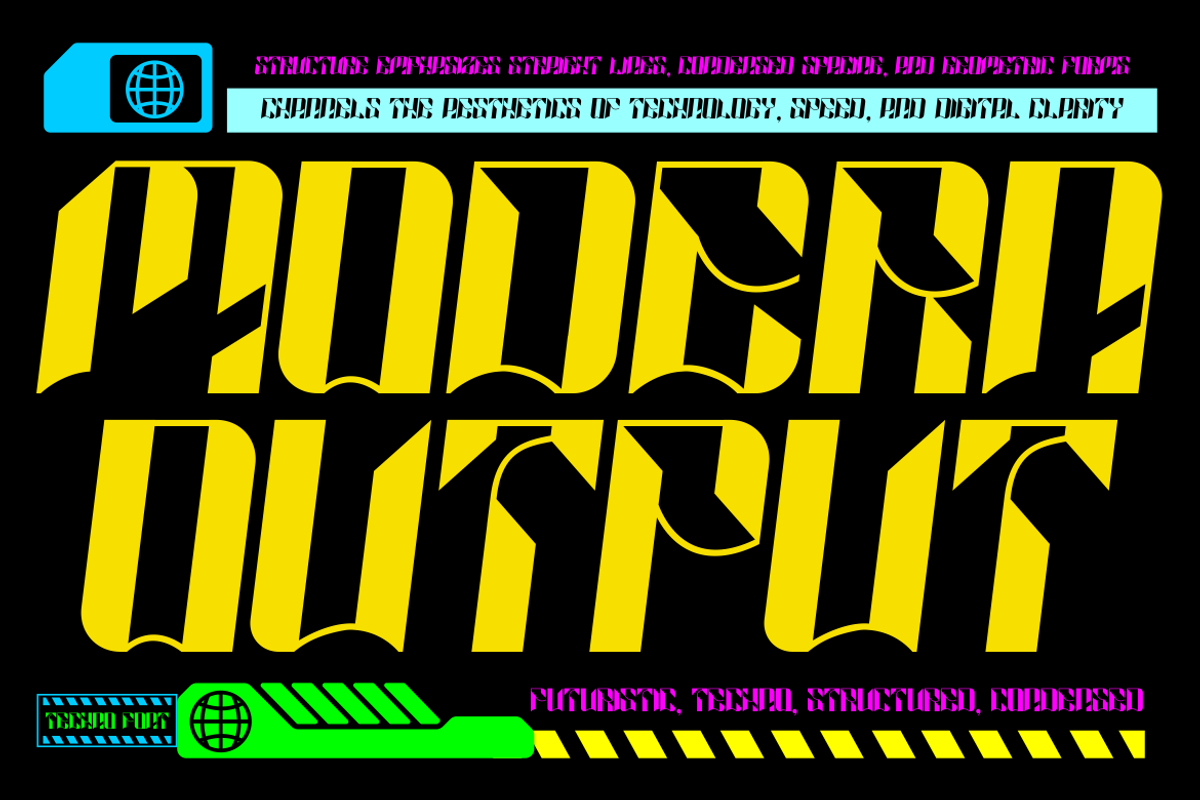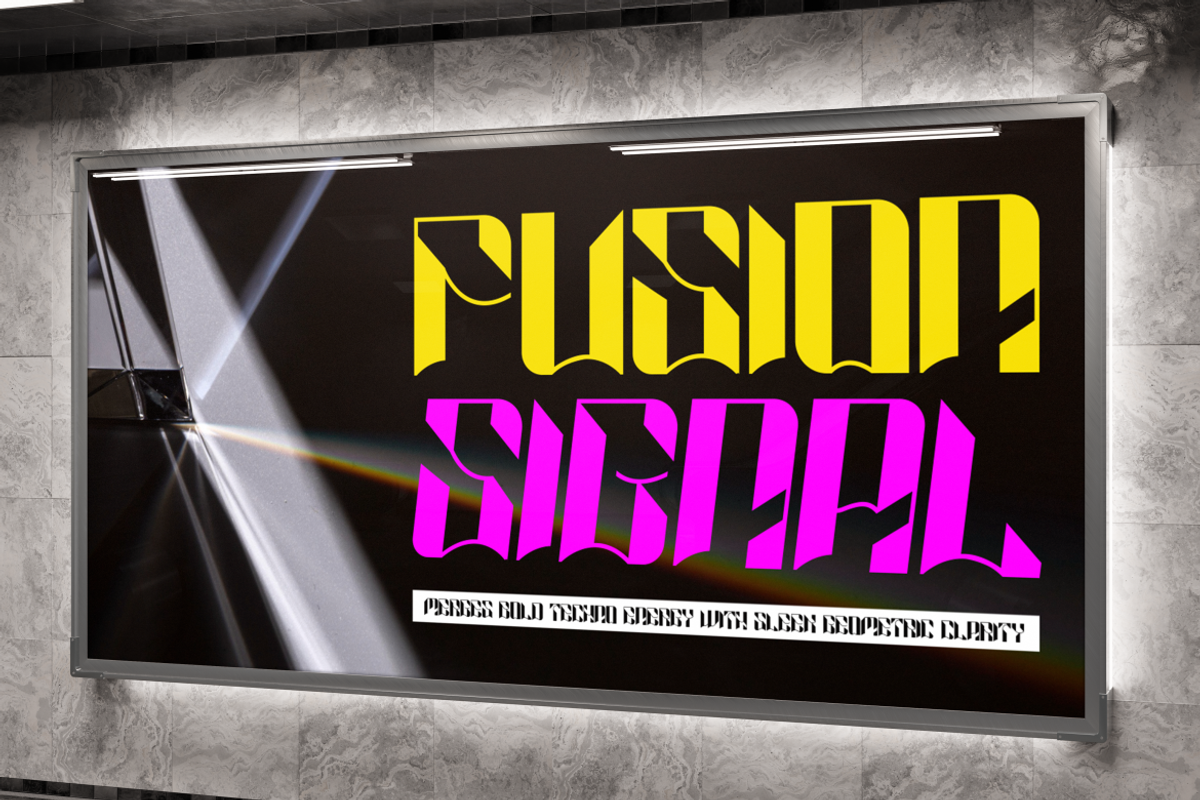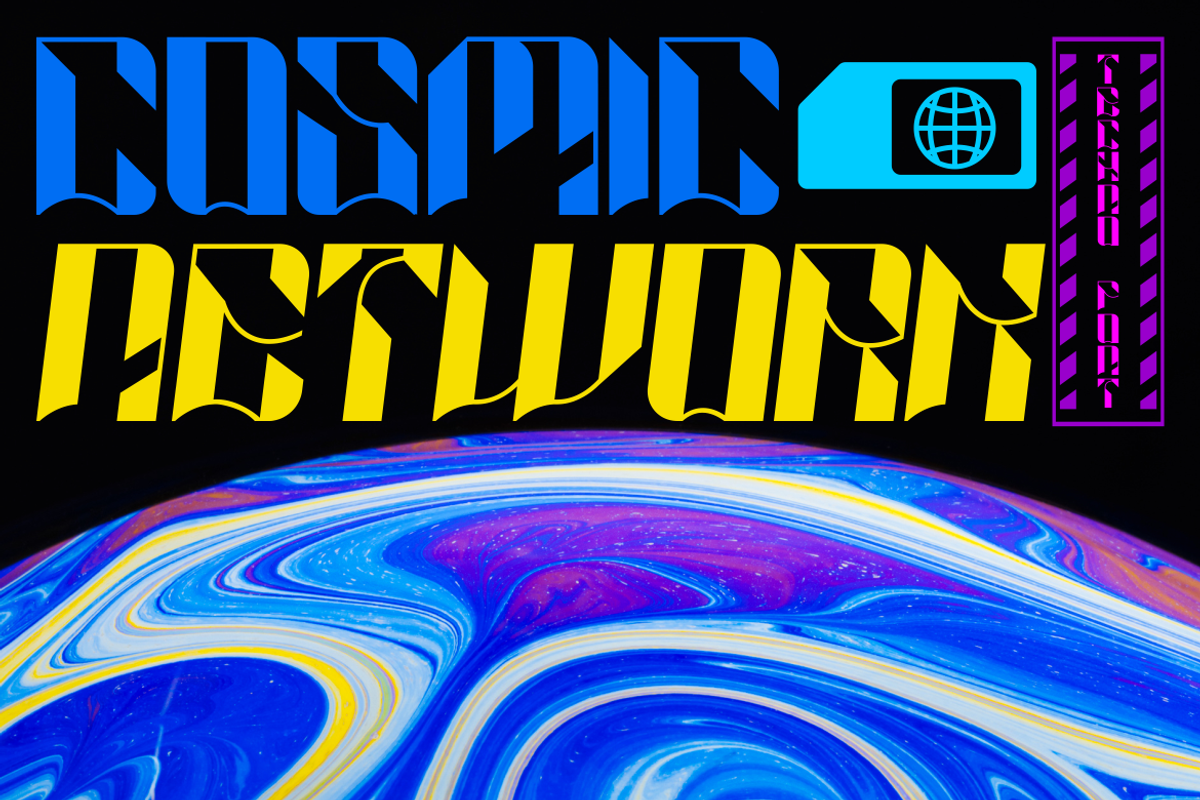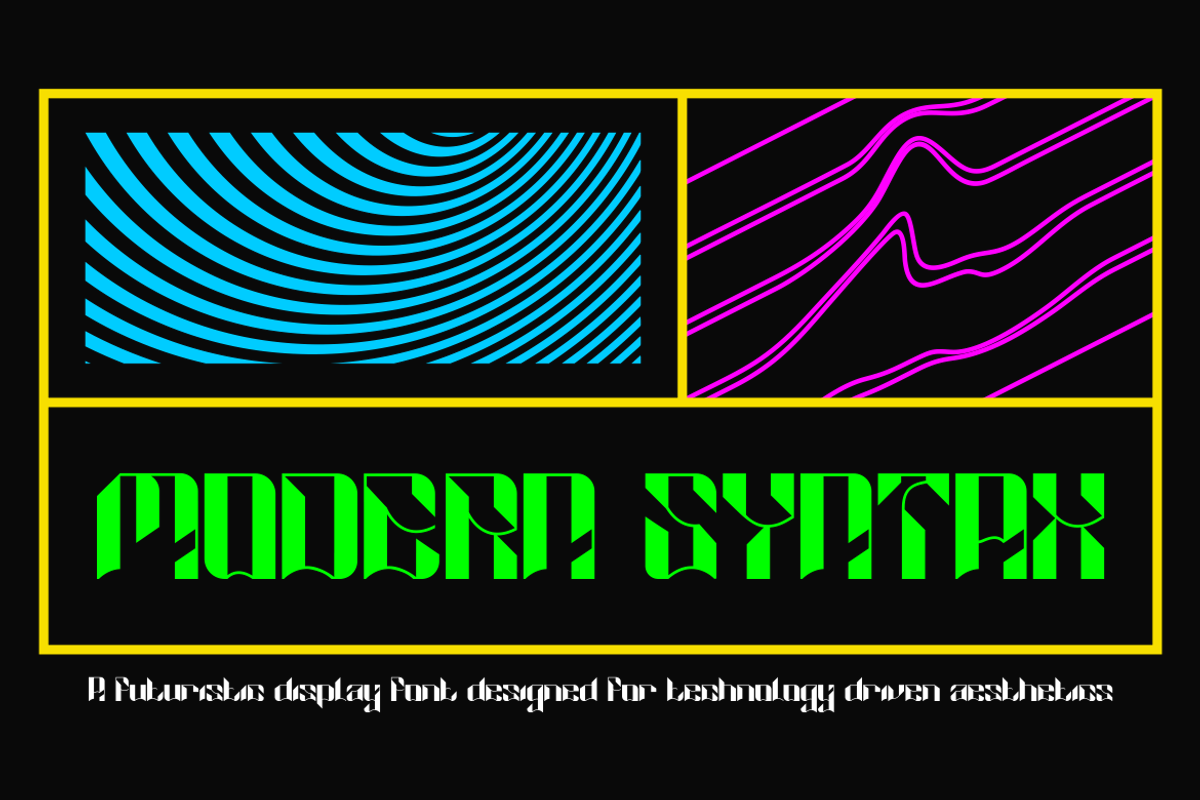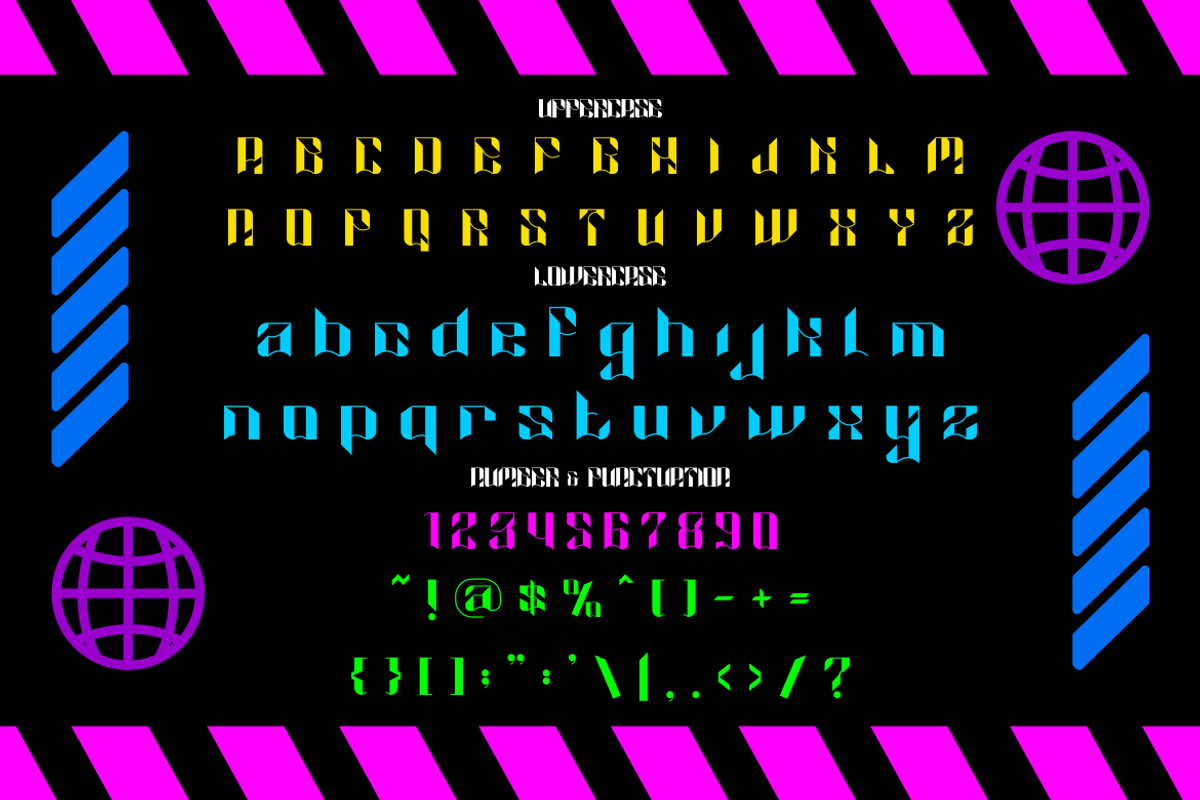
Cosmic Network Techno Font
Cosmic Network Techno Font is a futuristic display typeface that merges digital aesthetics with bold techno energy. The font is built with sharp geometric lines, condensed spacing, and striking angular cuts that reflect technology, speed, and innovation. Its design balances sci-fi inspiration with modern usability, making it a versatile choice for creative professionals who need a typeface that feels both futuristic and structured. Whether you are working on posters, packaging, logos, or digital branding, this font delivers a strong visual statement with a unique techno vibe.
The uppercase and lowercase styles complement each other, offering flexibility for headlines, titles, and branding layouts. Numbers and punctuation are crafted with the same techno clarity, ensuring consistency across every design. Cosmic Network works beautifully in tech branding, sci-fi titles, modern magazine layouts, or digital user interfaces. Its bold character makes it stand out in large-scale typography while retaining legibility in smaller applications. With its clean yet futuristic rhythm, this font is an essential tool for designers aiming to capture the aesthetics of tomorrow’s digital era.